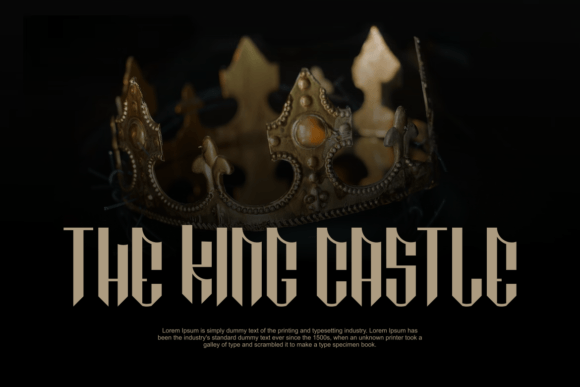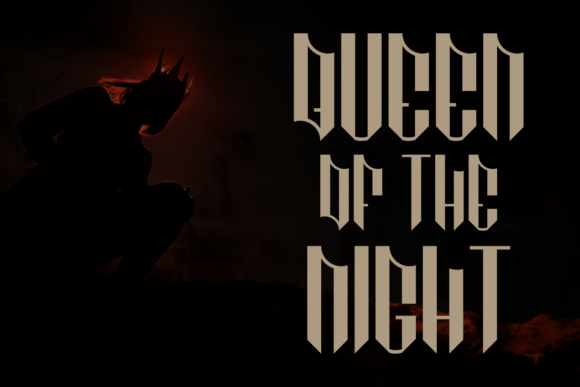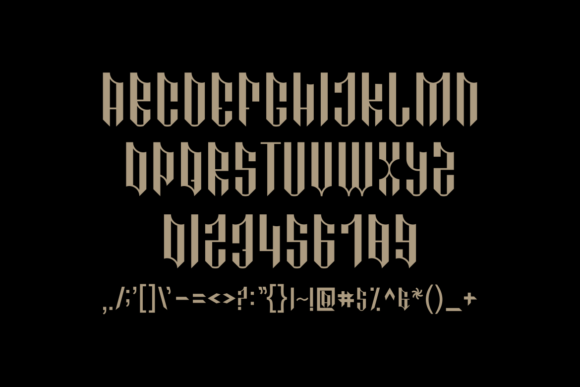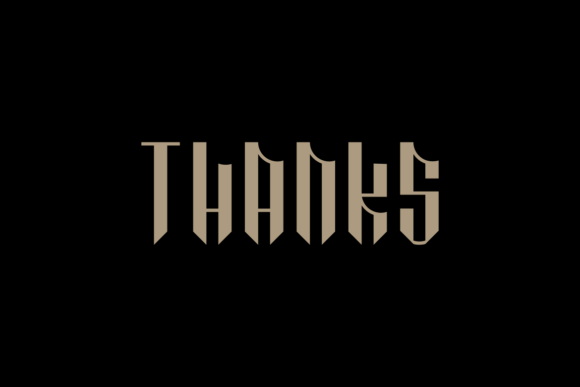
The Dehandra Font: A Bold and Authentic Black Letter Font for Your Creative Projects
I still remember the frustration of working on a logo design project, searching for the perfect font to convey a sense of strength and authenticity. My client wanted a bold, eye-catching design that would stand out in a crowded market. After hours of browsing through font libraries, I stumbled upon the Dehandra font. It was love at first sight! ✨ In this article, I’ll share my experience with Dehandra, its features, and how to make the most of this amazing font.
An Honest Review of Dehandra Font
What I Love About Dehandra Font
- ✅ Bold and Authentic: Dehandra is a bold and authentic black letter font that exudes confidence and strength.
- ✅ Versatile: It’s suitable for a wide range of projects, including logos, t-shirt printing, esports, and more.
- ✅ Elegant yet Edgy: Dehandra strikes the perfect balance between elegance and edginess, making it perfect for designs that require a touch of sophistication.
- ✅ High-Quality: The font is well-crafted, with clean lines and precise lettering.
While Dehandra is an excellent font, there are a few minor quirks to be aware of: 🤔
- ⚠️ Limited Use in Body Text: Due to its bold nature, Dehandra may not be the best choice for body text, especially in larger blocks of text.
- ⚠️ Glyph Limitations: Some users may find that the font lacks certain glyphs or special characters.
The Backstory of Dehandra Font
The Dehandra font was created by a talented type designer who’s passionate about crafting unique and authentic fonts. Inspired by traditional black letter fonts, the designer aimed to create a modern take on this classic style. With Dehandra, they wanted to create a font that’s both bold and elegant, perfect for designs that require a touch of sophistication. 💡
Q: What type of projects is Dehandra suitable for?
A: Dehandra is suitable for a wide range of projects, including logos, t-shirt printing, esports, and more.
Q: Is Dehandra a script font?
A: No, Dehandra is a black letter font, not a script font.